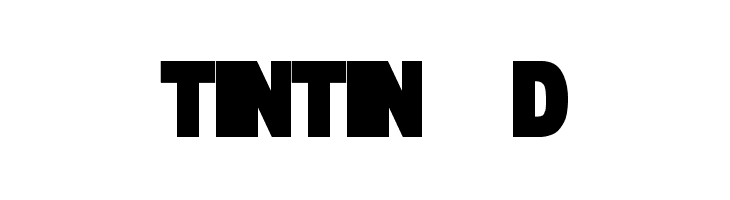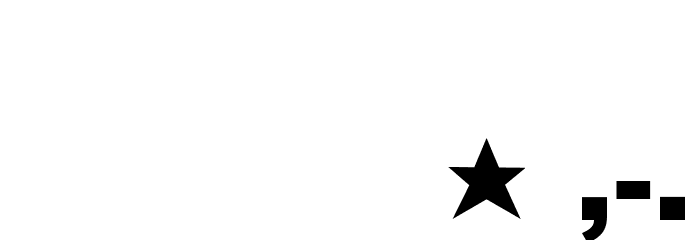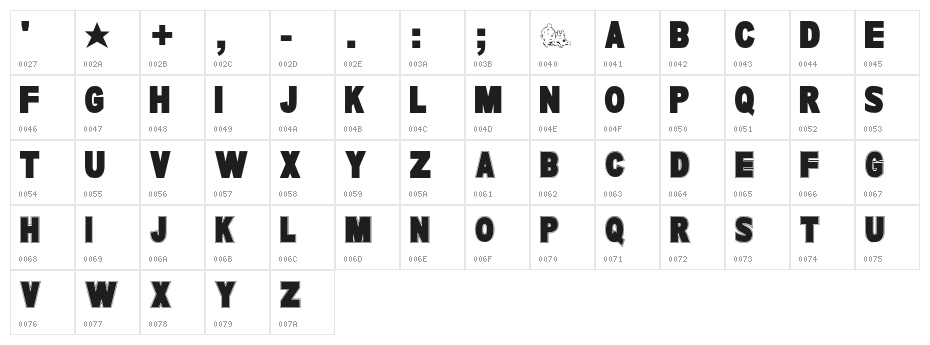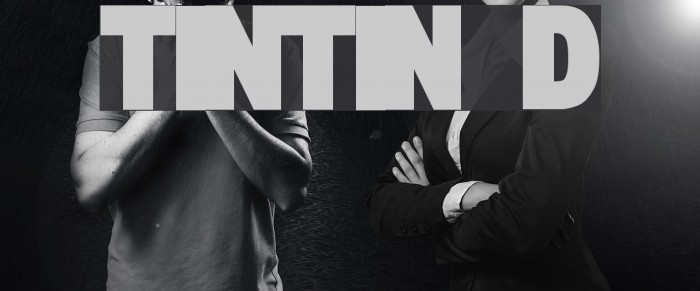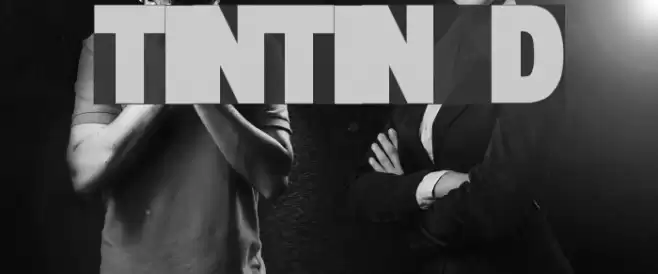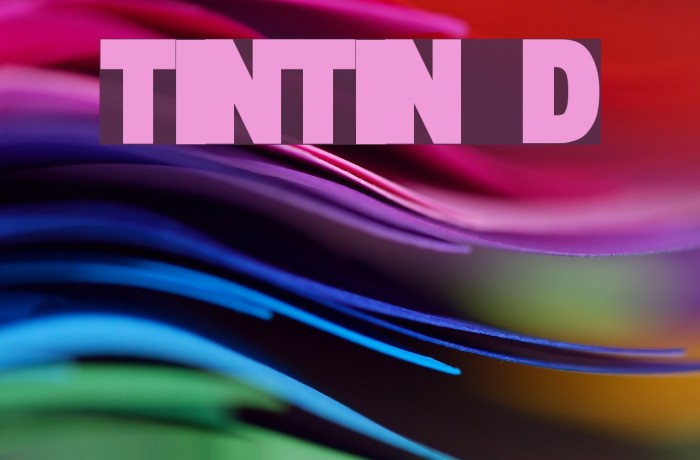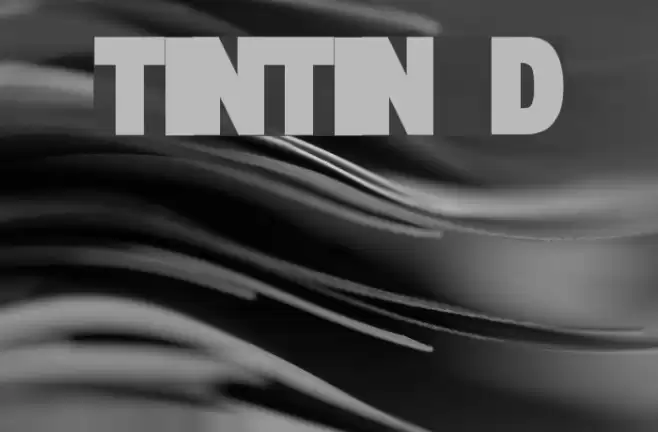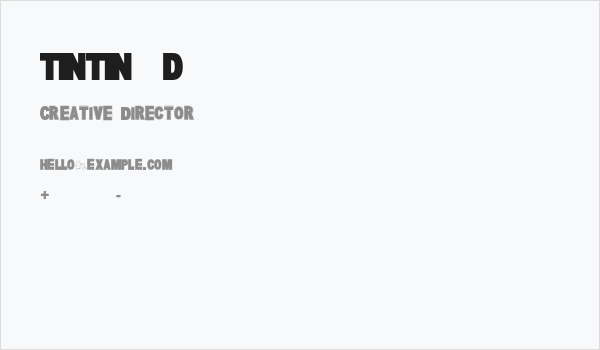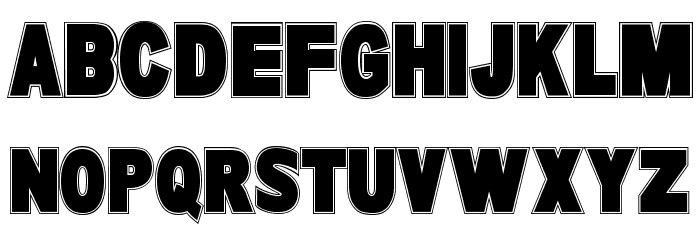
TINTIN 3D Font
TINTIN 3D Description
This bold and impactful font features uppercase letters with a strong, commanding presence. The characters are solid and blocky, with a slight 3D effect that gives them depth and dimension. The edges are sharp and clean, contributing to a modern and assertive look. The font is designed to capture attention and make a statement, making it ideal for headlines or titles. The spacing between characters is tight, enhancing the compact and powerful appearance. The overall style is modern and decorative, suitable for projects that require a bold and striking visual impact.
| Proposed Projects | Ideal for headlines, posters, logos, and any design requiring a strong visual impact. |